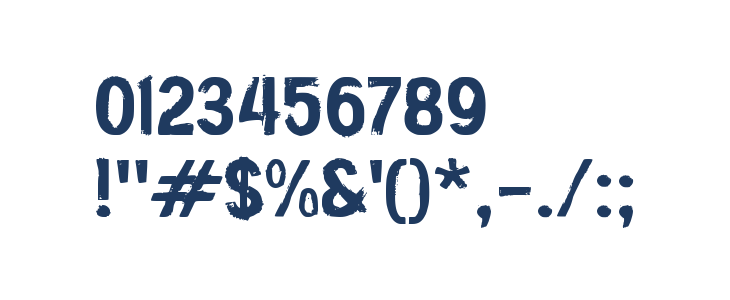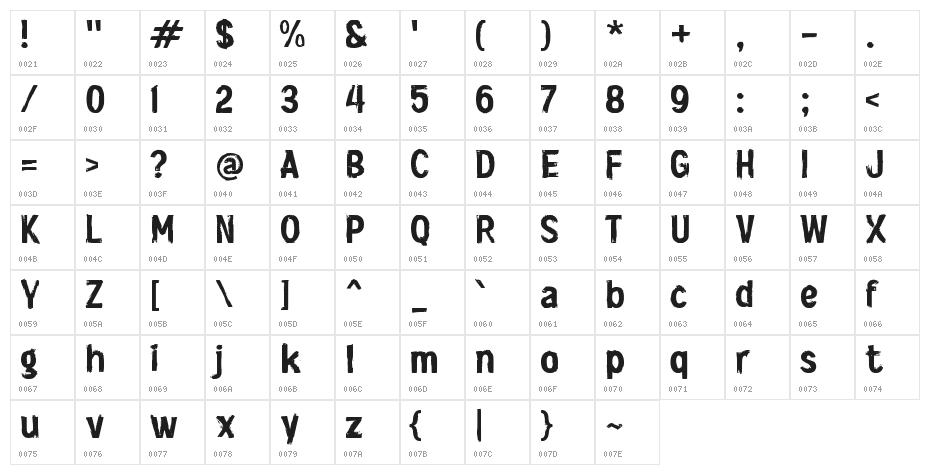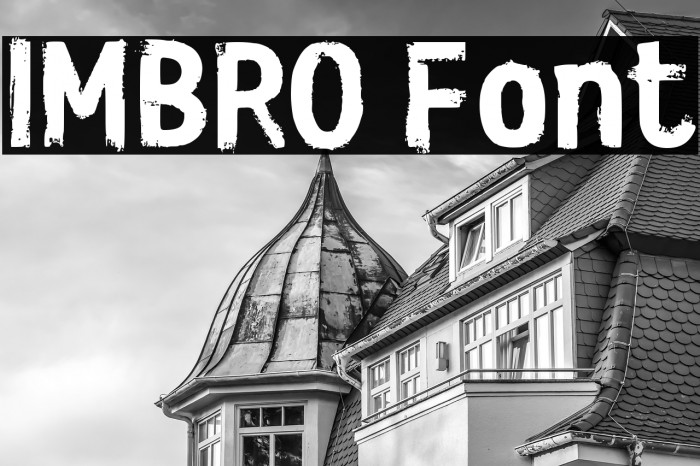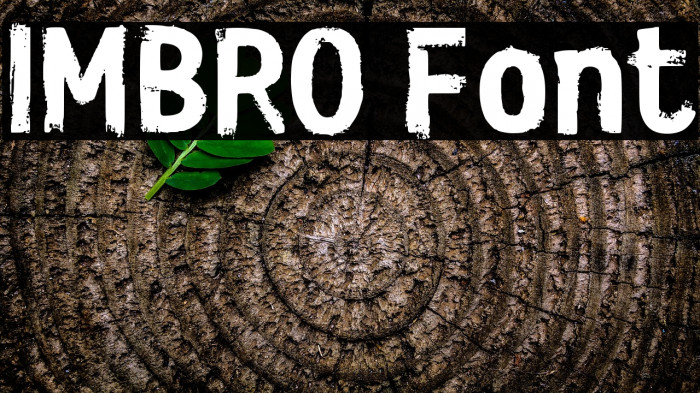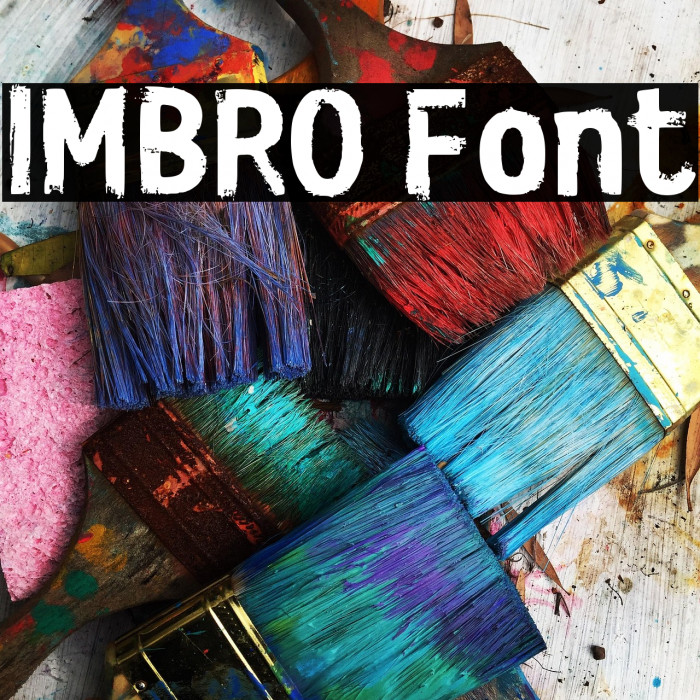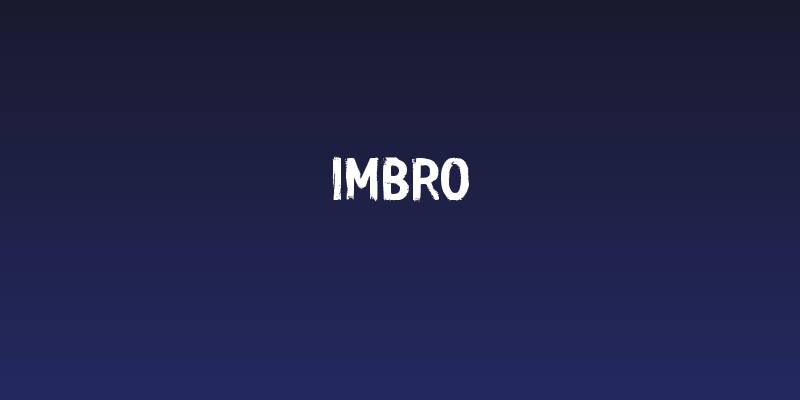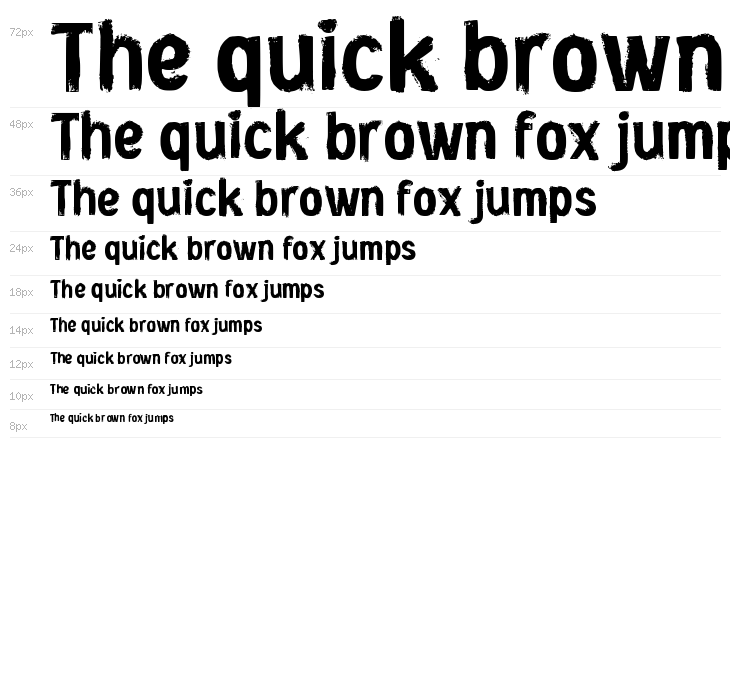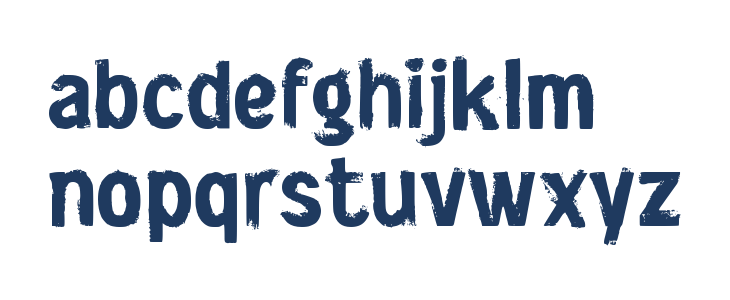
IMBRO Font
IMBRO Description
This font features a bold and distressed style, characterized by rough, textured edges that give it a rugged and worn appearance. The uppercase and lowercase letters maintain a consistent weight, contributing to a strong visual impact. The numerals and special characters follow the same distressed aesthetic, ensuring a cohesive look across all elements. The font's design is reminiscent of hand-painted or stamped lettering, making it ideal for projects that require a gritty, urban feel. Its boldness ensures readability while the unique texture adds character and depth.
| Overall Style | Rugged, Urban, Distressed |
| Proposed Projects | Ideal for posters, album covers, branding for edgy products, and streetwear designs. |